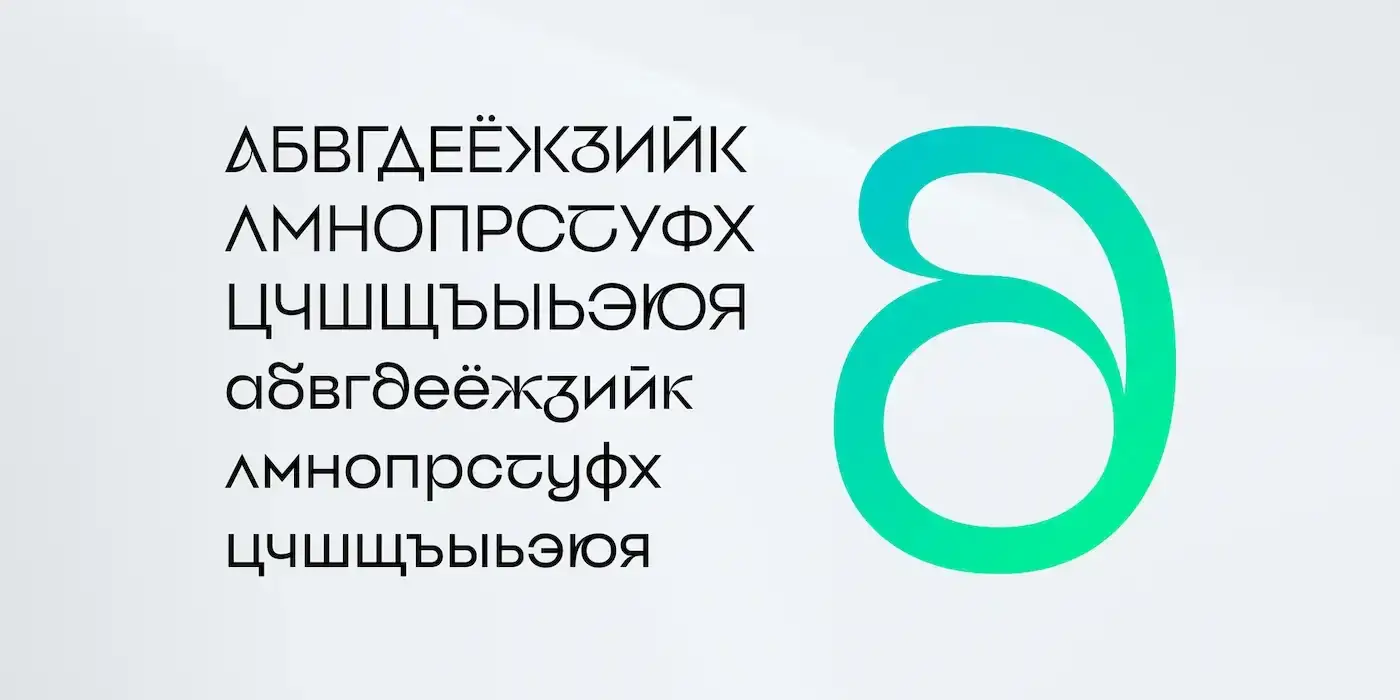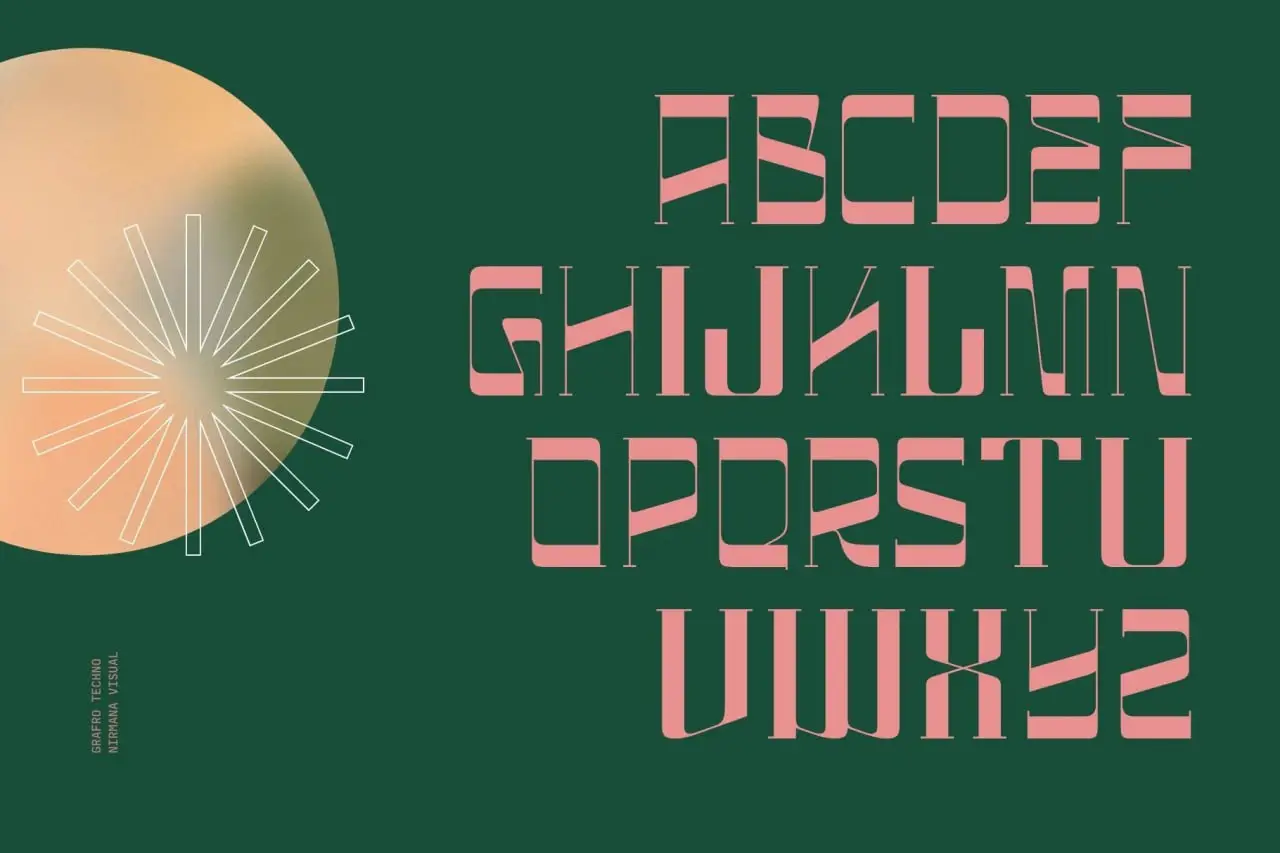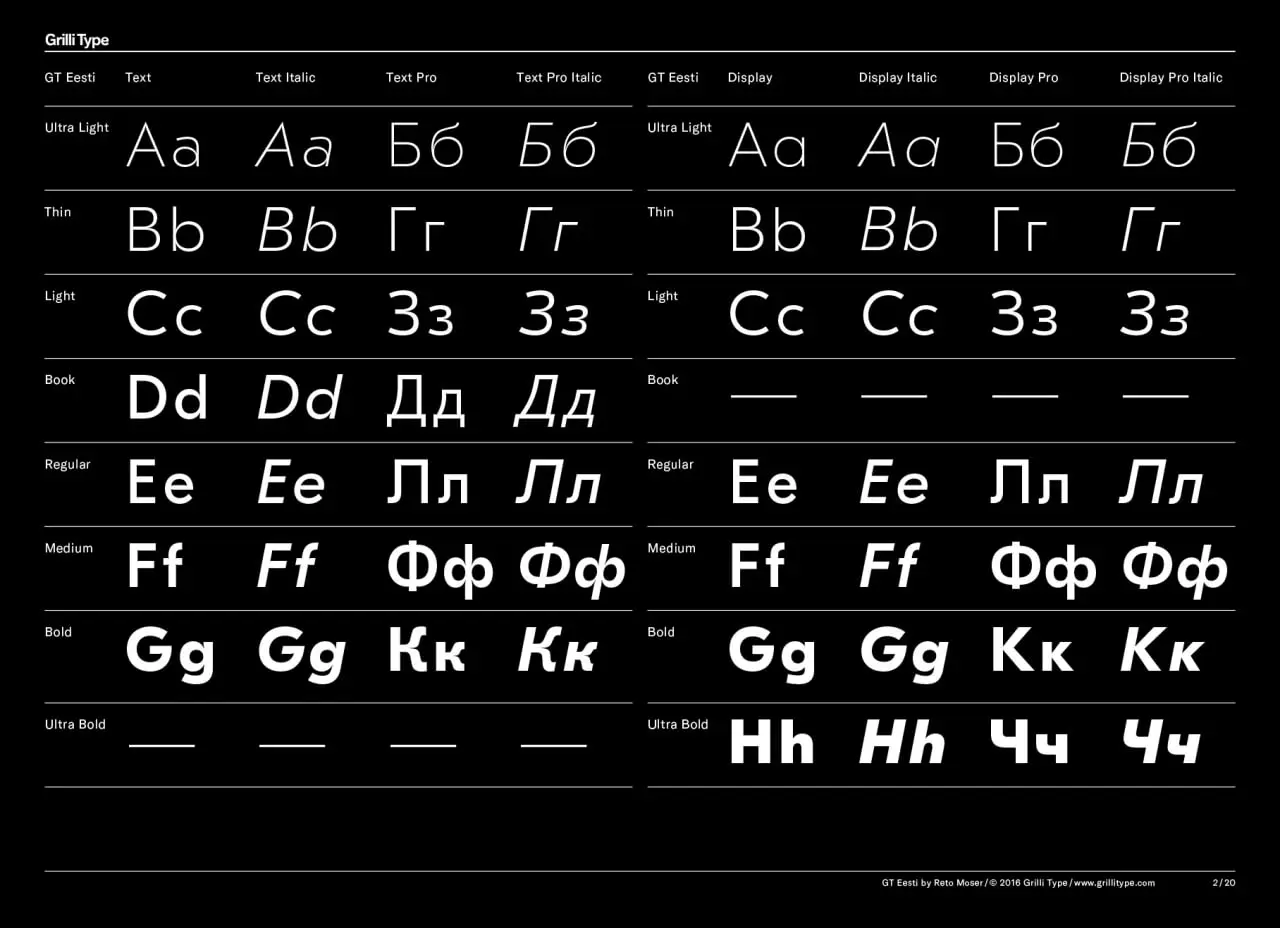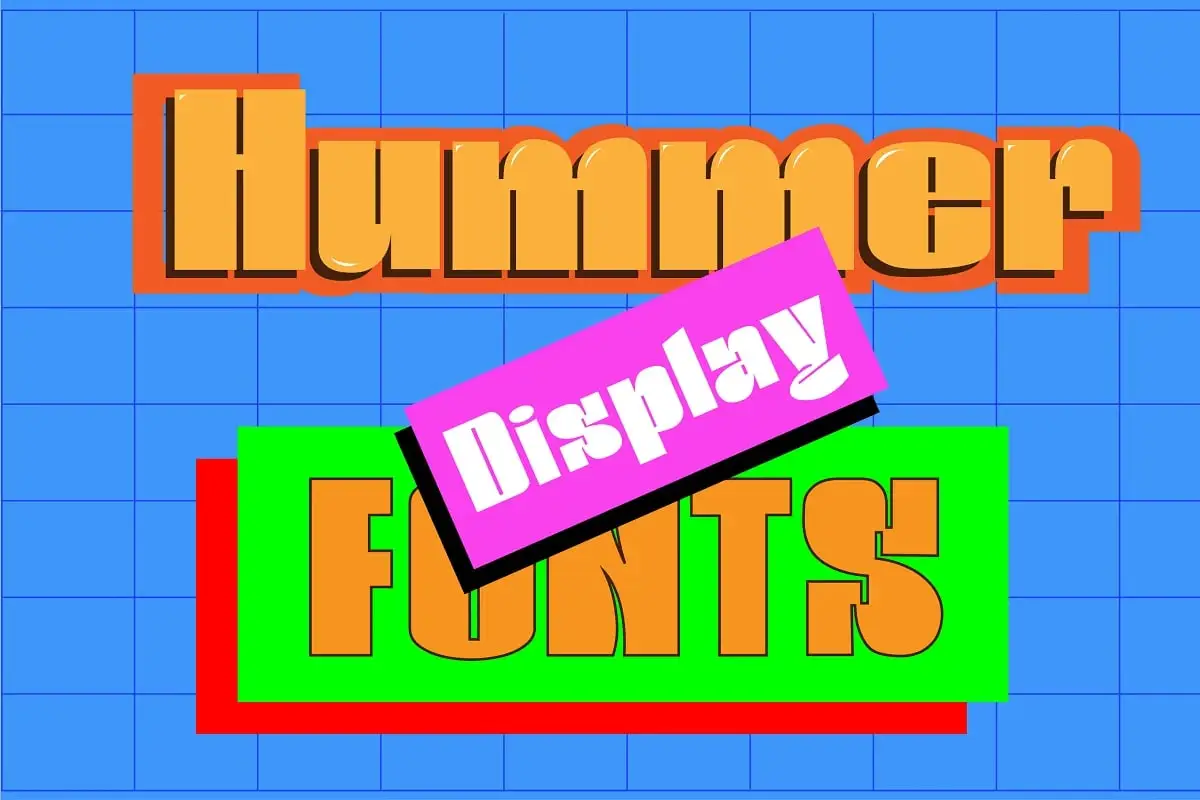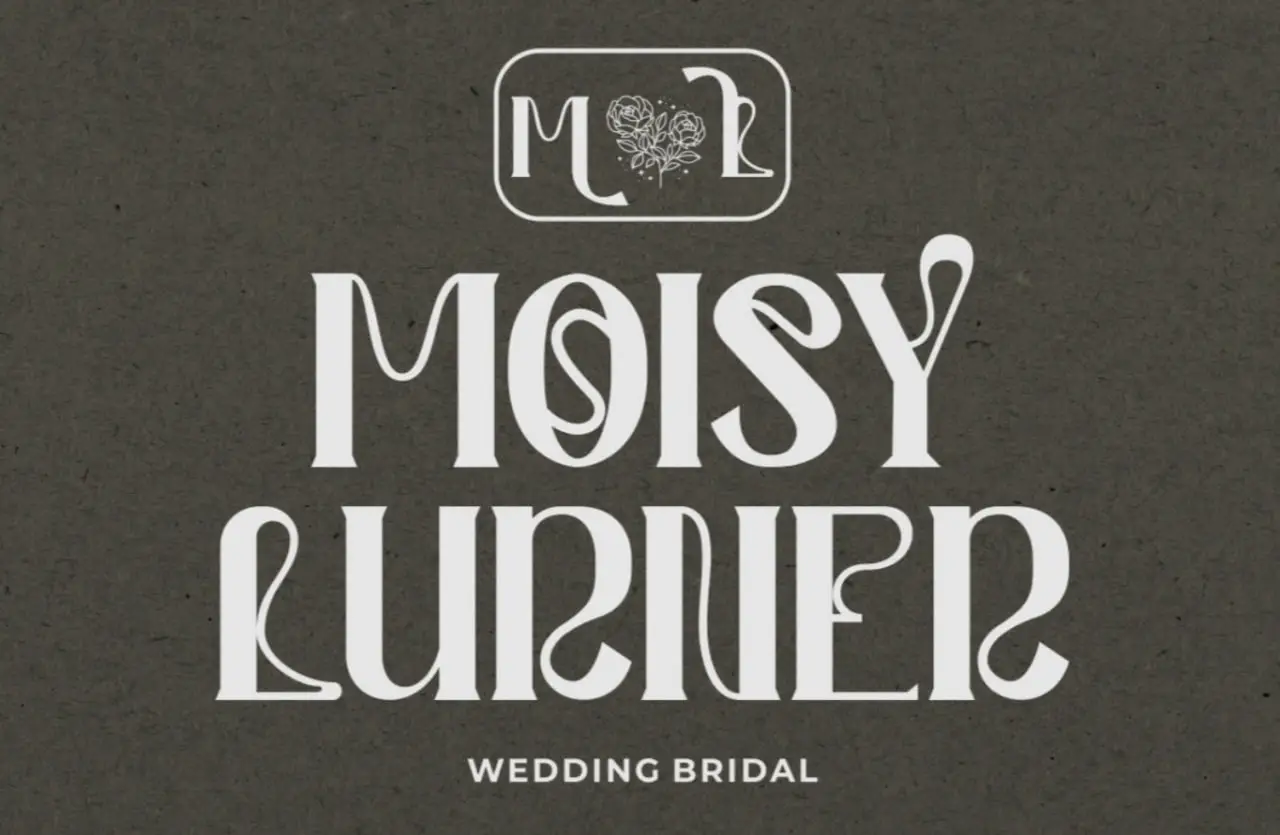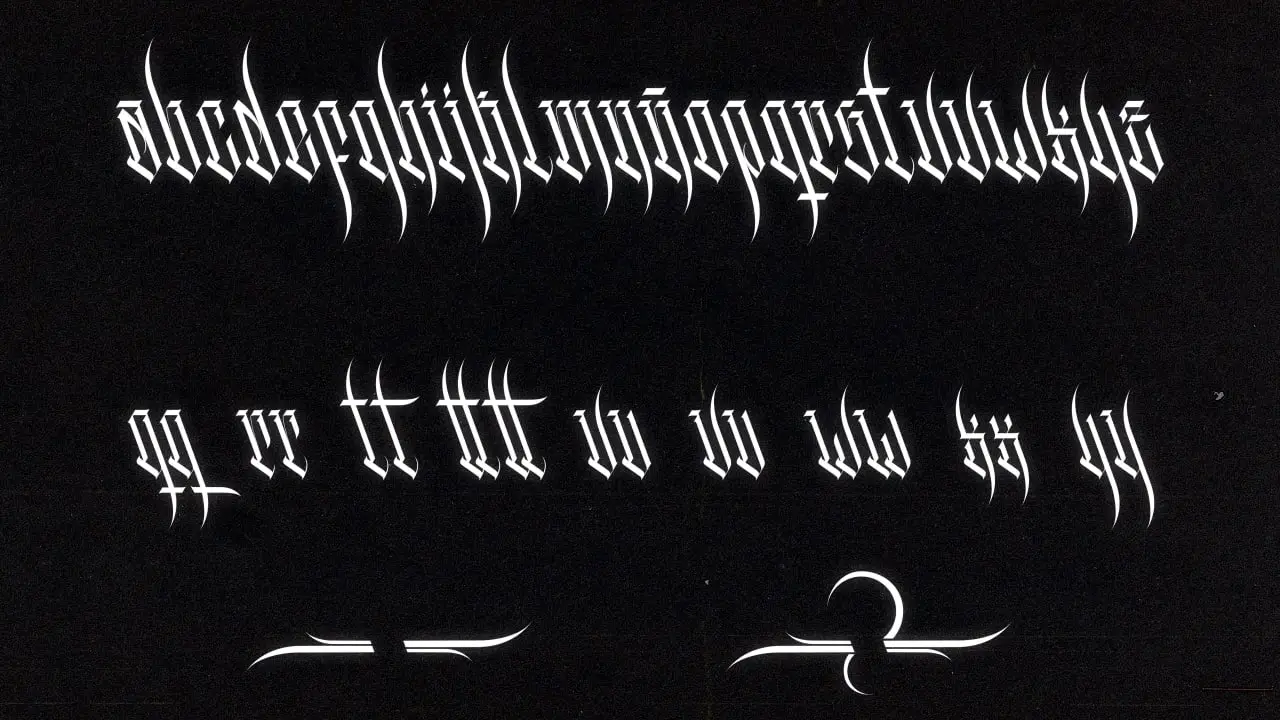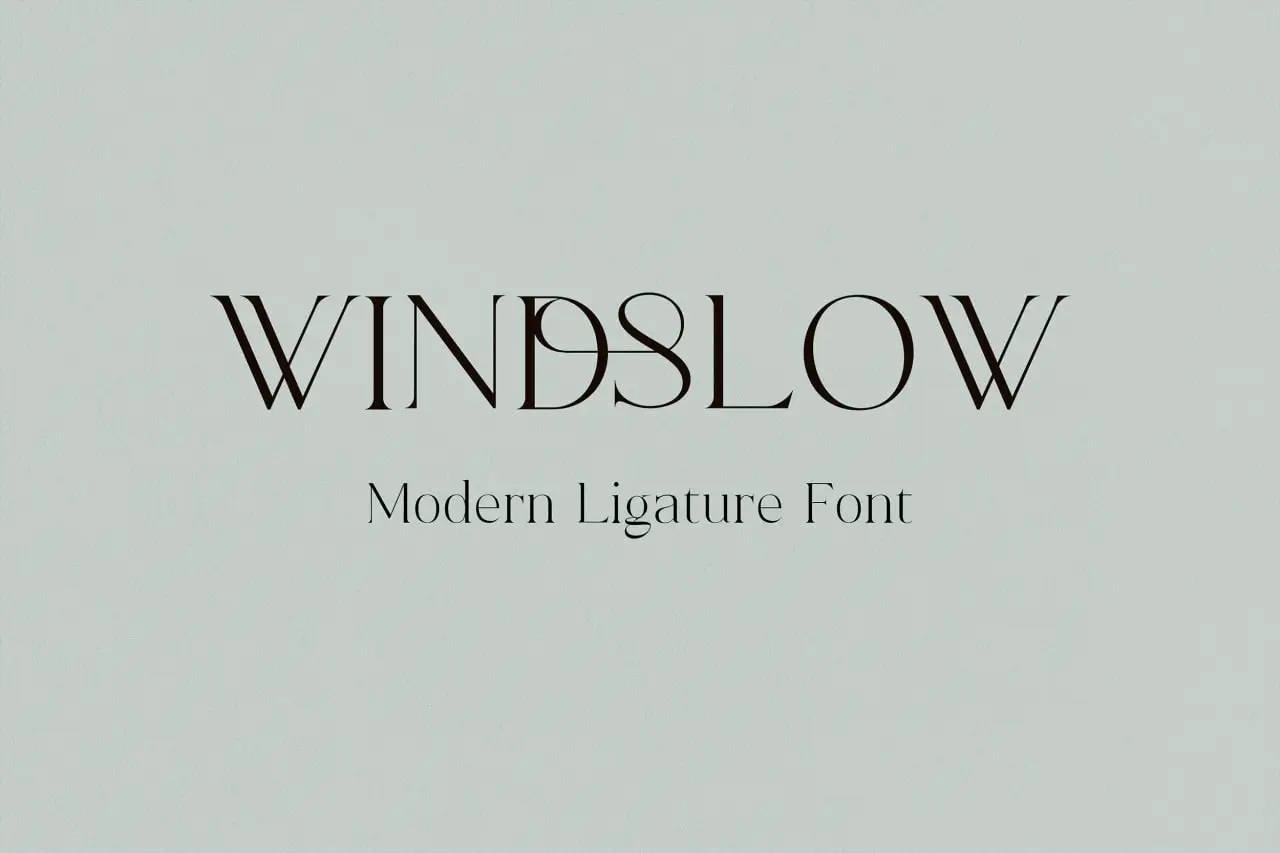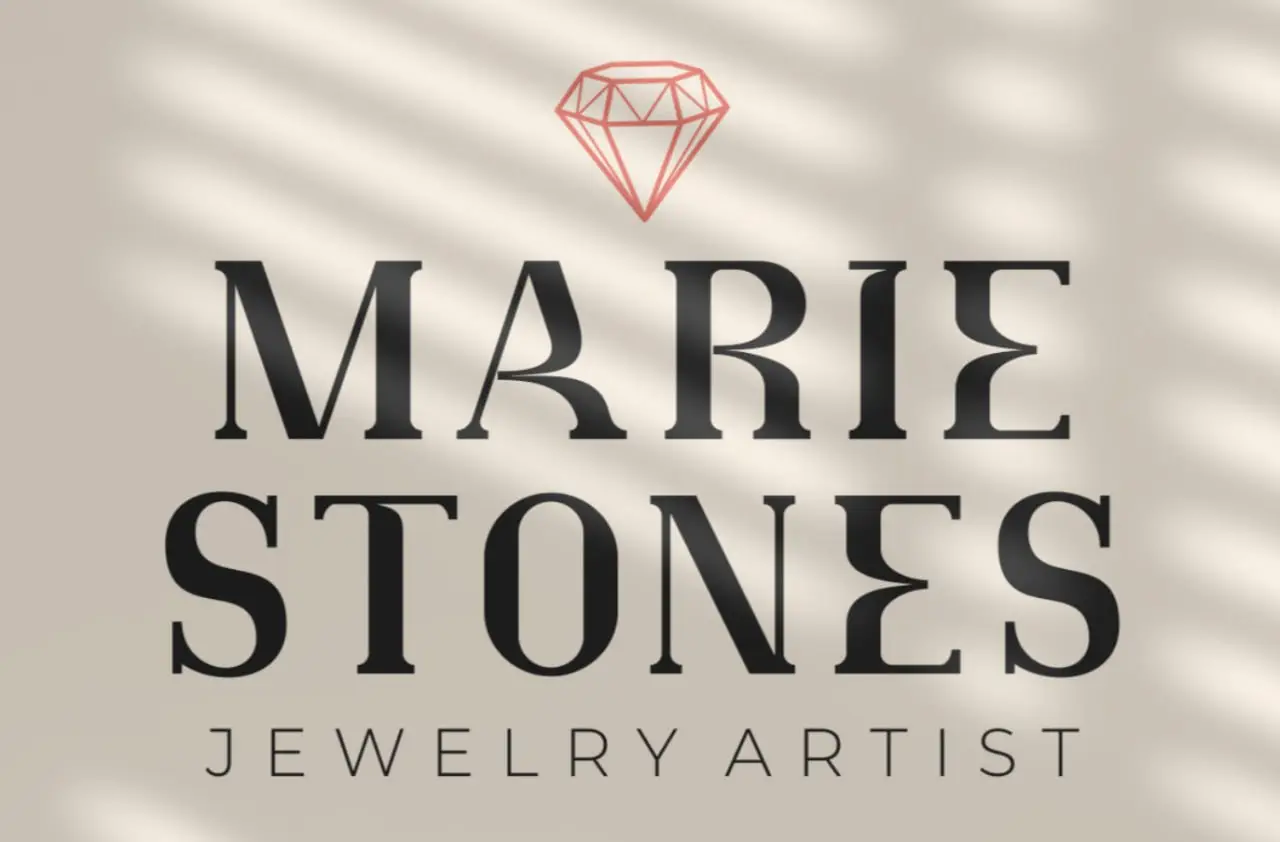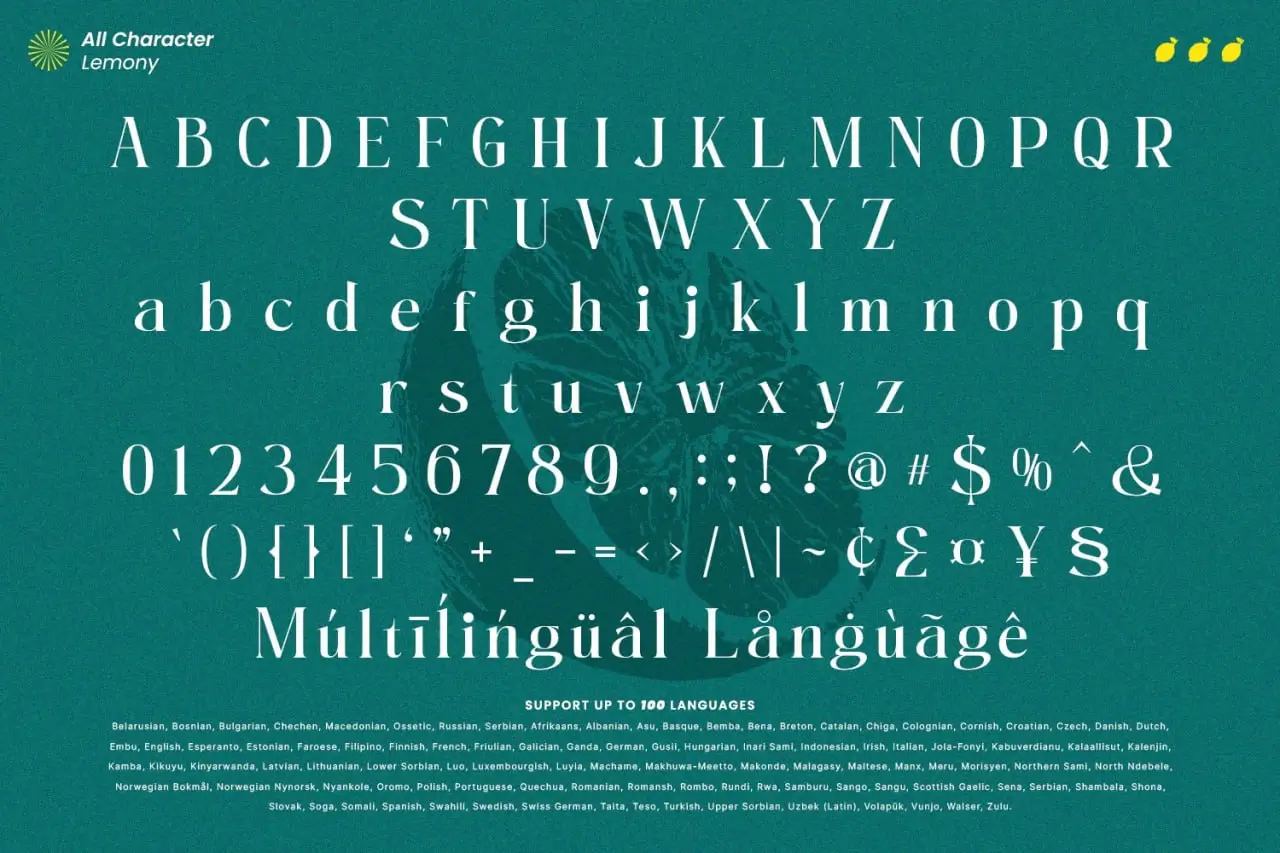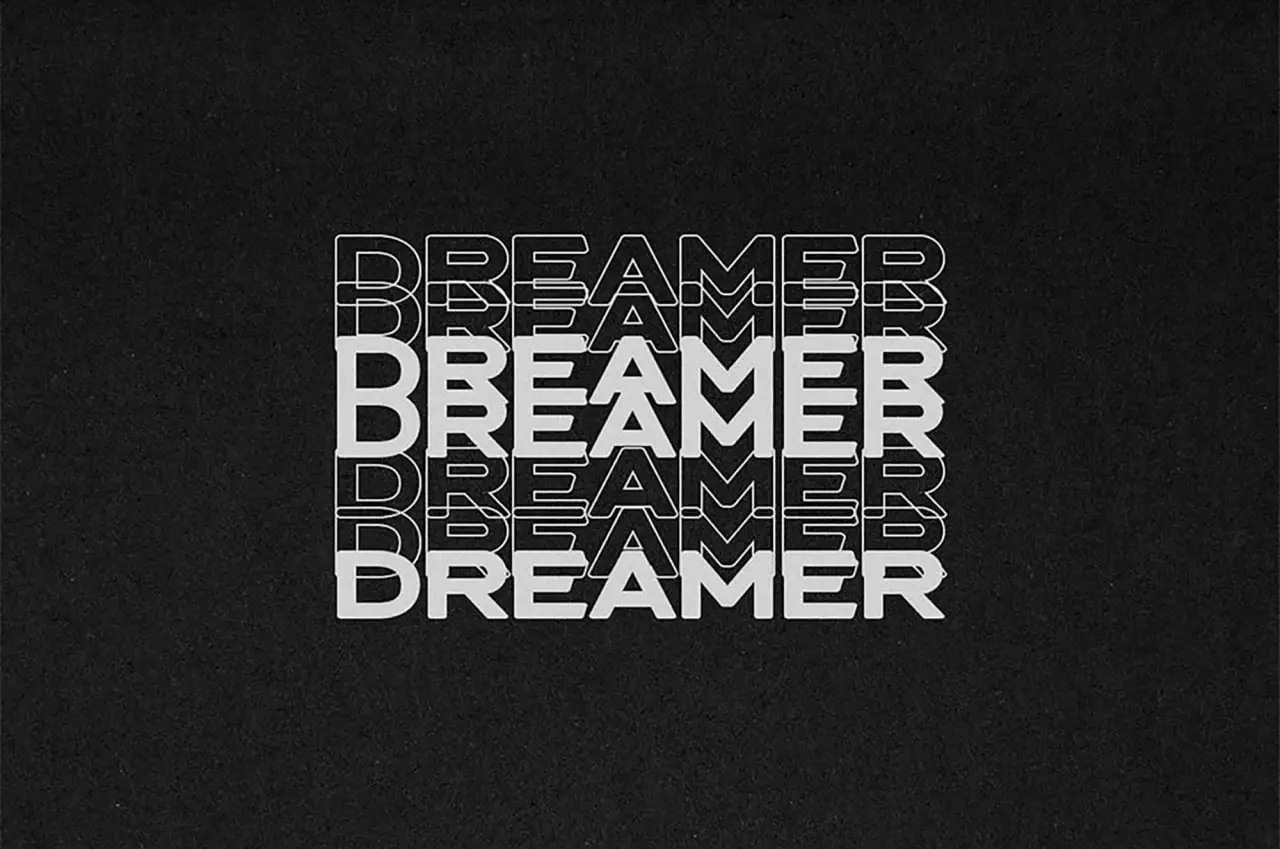
Mantey
Meet Mantey—a sleek, modern typeface with elegant curves that screams sophistication. It’s perfect for branding, logos, and any project needing a touch of class! ✨
Letterhend Studio-Asterone Font Family
This entire font family is a powerhouse of elegance! With multiple weights and stunning contemporary letterforms, Asterone is your go-to for branding and web design that pops. 🎨
Hummer Font
Bold, striking, and impossible to ignore—Hummer Font is built to make a statement. Its dynamic lines and unique shapes are perfect for logos and headlines that demand attention! 💥
Mateusz Machalski-Afronaut
Unleash your imagination with these vibrant, high-res illustrations! Afronaut is perfect for adding a creative, cosmic touch to branding, marketing, and social media. 🚀✨
Lemony Regular By Donis Miftahudin
Fresh, playful, and oh-so-modern—Lemony Regular is like a burst of citrus for your designs! 🍋 Perfect for branding and logos that need a cheerful, youthful vibe.
Lafonsa By Putracetol Studio
Lafonsa is pure elegance! This collection of intricate design elements seamlessly elevates any project, from branding to digital art. Get ready to wow your clients! 🌟
Katana Font
Sharp, bold, and full of flair—Katana Font slices through the noise! Its elegant curves and multiple weights make it ideal for branding and eye-catching print materials. ⚔️✨
Labfcreations-Windslow
Versatile and easy to customize—Windslow is the perfect digital asset for branding and marketing. It adapts to your vision, whether print or digital! 🖌️
Maler
Maler provides the perfect foundation for any creative endeavor! With a variety of high-quality styles and elements, it’s super easy to customize and integrate. A true workhorse! 🎨
La Gagliane Classic Modern Typeface
Sophistication meets modern design! La Gagliane beautifully balances elegance with contemporary style, making it perfect for branding, logos, and digital media. 🖋️✨
Lucas Descroix-Grandmaster
Channel your inner design master with this asset! It combines intricate details with modern aesthetics and comes with multiple color variations. Truly next-level! 🏆
Lugati Sans V1
Clean, geometric, and incredibly readable—Lugati Sans V1 is a modern sans-serif dream! Multiple weights make it versatile for everything from web design to print. 🔤
Ktf Rublena Font Cyrillic
Beautiful Cyrillic typography? Yes, please! Ktf Rublena brings elegance to your projects with unique style and versatile weights. Perfect for international branding! 🌍✨
Kidder Font
Whimsical and playful, Kidder Font is a joy to work with! Its rounded edges and unique letterforms are perfect for children’s books, educational materials, and fun branding. 🧒🎈
Kapecha By Putracetol Studio
Kapecha is a treasure trove of high-quality design elements! With a variety of styles and themes, this asset is super easy to customize and integrate into any project. 💎
Gt Eesti By Reto Moser
Clean lines and geometric perfection—Gt Eesti captures the essence of modern typography. This versatile font family is a must-have for any designer’s toolkit! 🛠️✨
Grafita
Modern, crisp, and ready to roll—Grafita offers high-resolution assets for branding, marketing, and digital interfaces. A versatile powerhouse for your creative arsenal! 🚀
Grafro Techno Font By Sigit Dwipa
Get futuristic with Grafro Techno! This sleek, modern typeface is perfect for digital and print projects that need a unique, techno edge. 🤖🔥
Grinda By Putracetol Studio
Unique, modern, and high-res—Grinda is a fantastic collection of graphics by Putracetol Studio. Easy to customize and perfect for both personal and commercial use! 🌿
Gunydrops Display Font
Make a bold, playful statement with Gunydrops! Its unique curves and distinct character make it a showstopper for logos, branding, and eye-catching headlines. 💧✨
And there you have it—20 incredible design assets from the **BrushesPack Collection Part 93**! 🎉 Whether you’re crafting a brand identity, designing a website, or just having fun with typography, these tools will take your work to new heights. Don’t wait too long—grab your favorites before they’re gone! Happy designing, legends! 🚀🎨